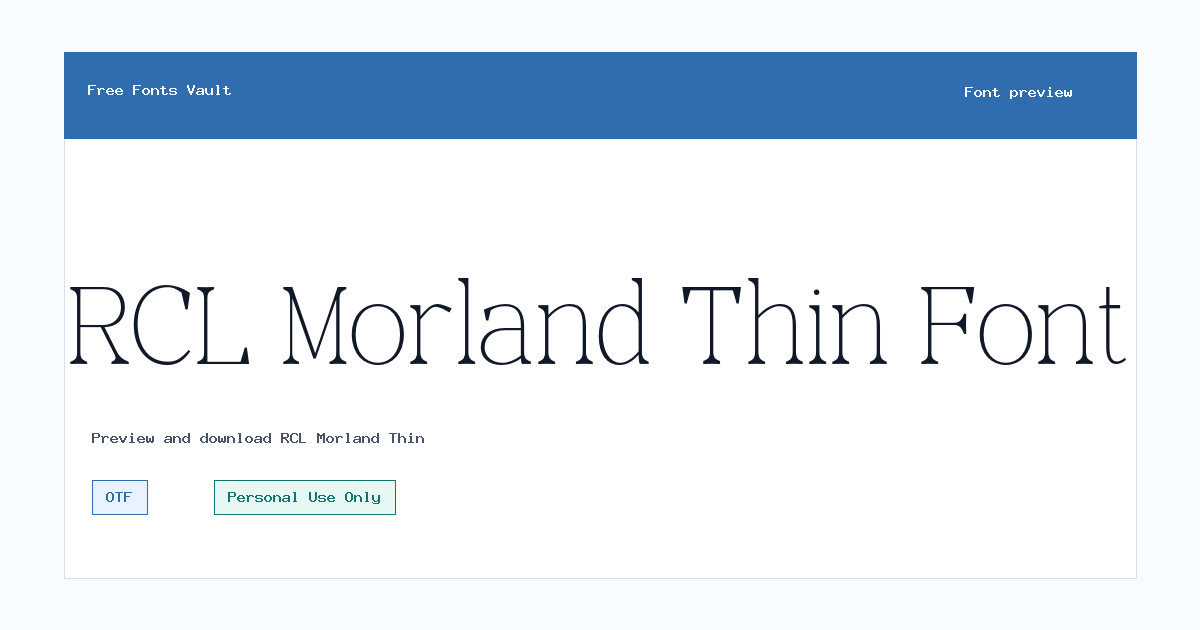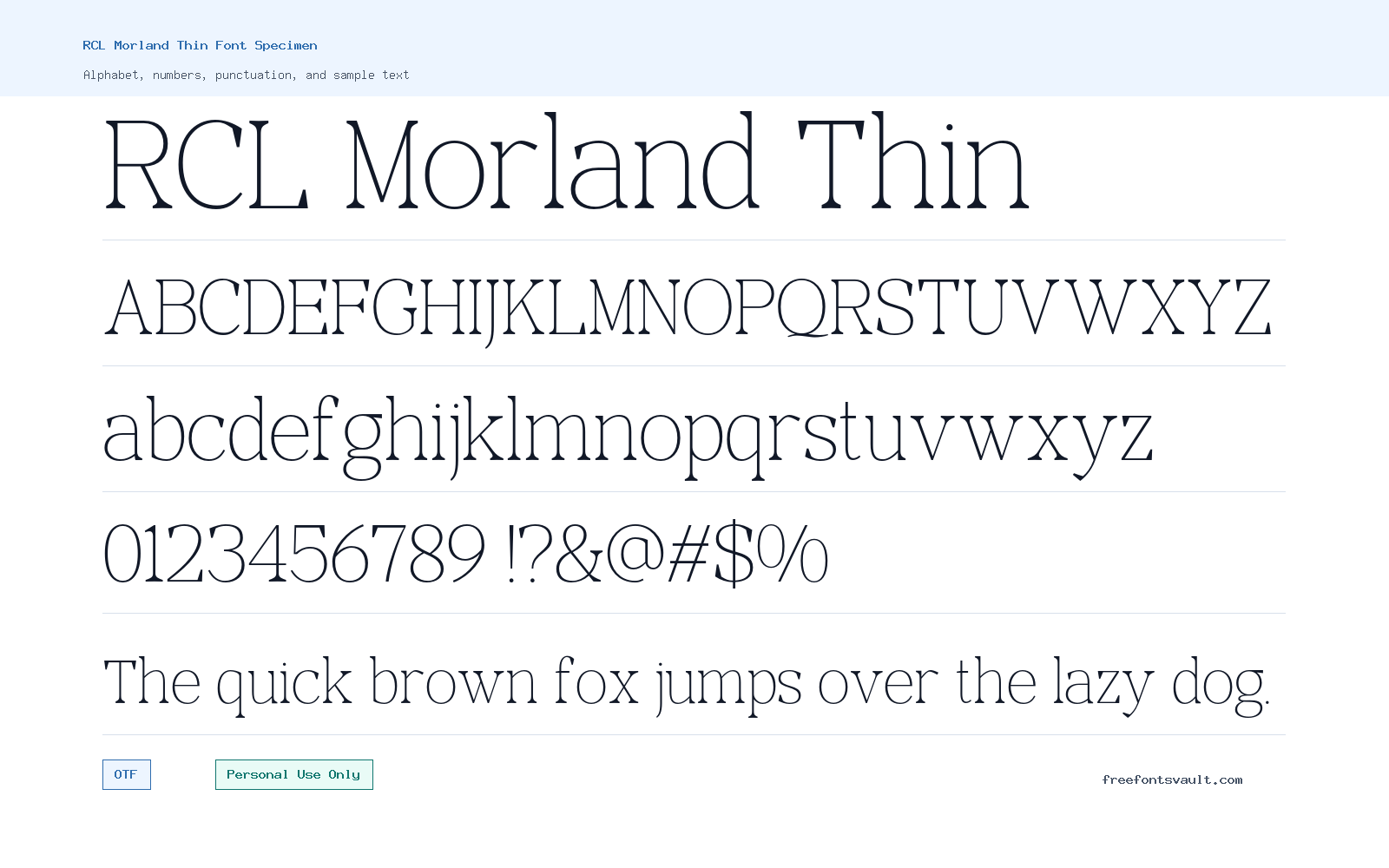
RCL Morland Thin
RCL Morland Thin font preview showing the family name
RCL Morland Thin Font
RCL Morland Thin font specimen showing alphabet, numbers, and sample text
• Designer Bakhrudin Ja'far
RCL Morland Thin is the lightest-looking style in the Morland serif family, made for designers who want a quiet, refined letterform for elegant short text. Its thin regular and italic styles are useful for testing graceful headings, editorial layouts, invitations, and brand mockups where a lighter serif voice is needed.
RCL Morland Thin belongs to the Morland serif family and focuses on a very light weight rather than heavy display impact. The thin strokes give words a calm, polished look, while the serif structure keeps the font readable in controlled settings. Because this style uses a 100 weight, it is best treated as a delicate option for large or medium-large text, not as a workhorse paragraph face.
The download includes both upright and italic OTF styles, so you can compare a clean title setting with a softer emphasized version. Try the upright style for names, cover lines, packaging drafts, quote graphics, or minimal website hero text. Use the italic for small accents, short captions, or a secondary line under a heading. Thin serif fonts can lose clarity at small sizes, on low-resolution screens, or over busy images, so preview your actual words before using it in a finished design.
• Thin 100-weight serif style for light, elegant display typography
• Editorial-style headlines, invitations, title cards, and refined quote graphics
• Brand mockups, packaging concepts, portfolio previews, and short accent text
For the best result, test RCL Morland Thin at larger sizes and with generous spacing. It can look refined in short headings, but the thin strokes may become faint in long paragraphs, small UI text, or low-contrast color combinations. Pair it with a simpler sans serif for body copy if you need a clearer reading experience.
What is RCL Morland Thin best used for?
It works best for short, elegant text such as headings, invitations, quote designs, packaging drafts, and editorial-style mockups.
Can I use RCL Morland Thin for body text?
It is not the safest choice for long body text because the 100-weight strokes are very light. Use it for display text and pair it with a more readable font for paragraphs.